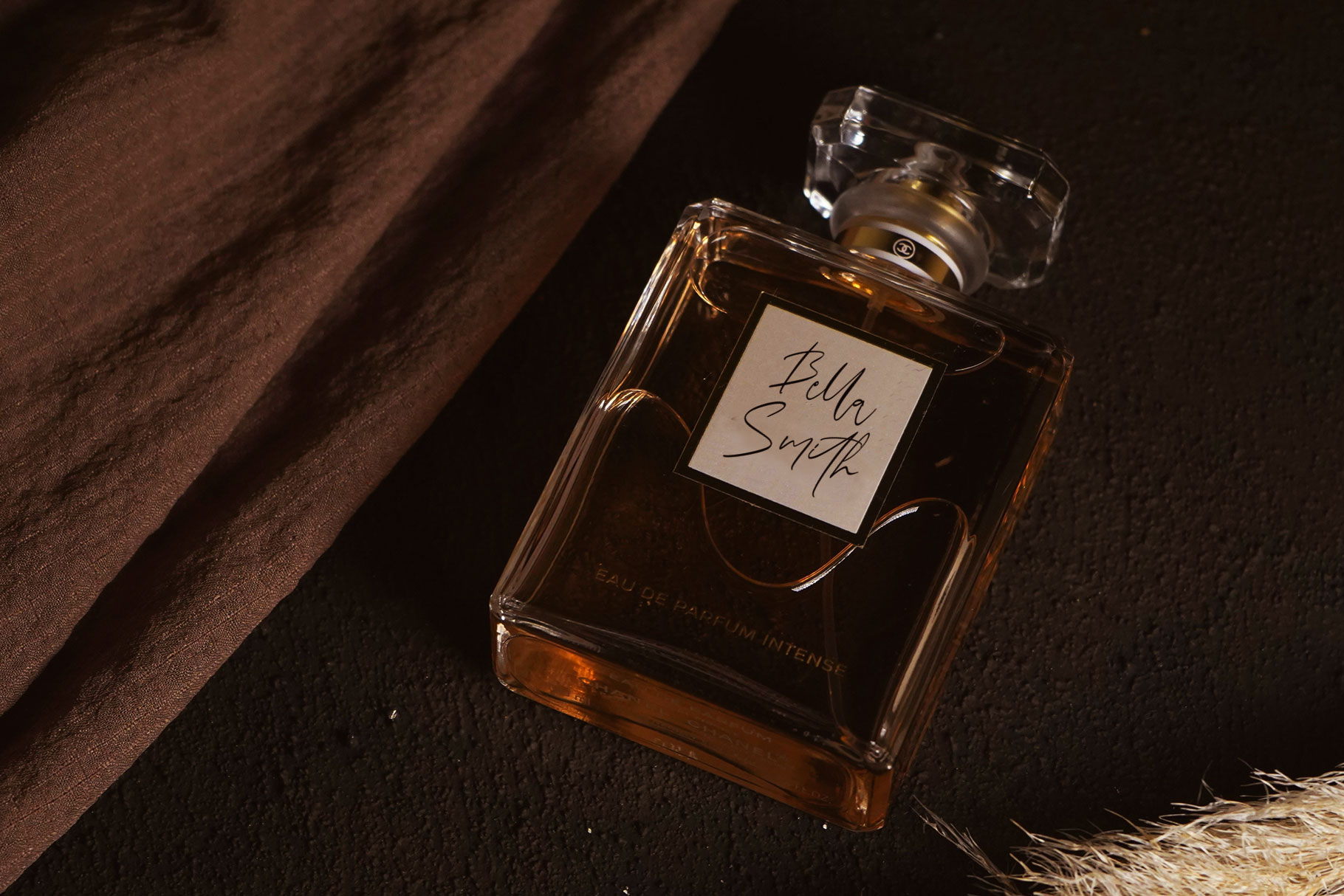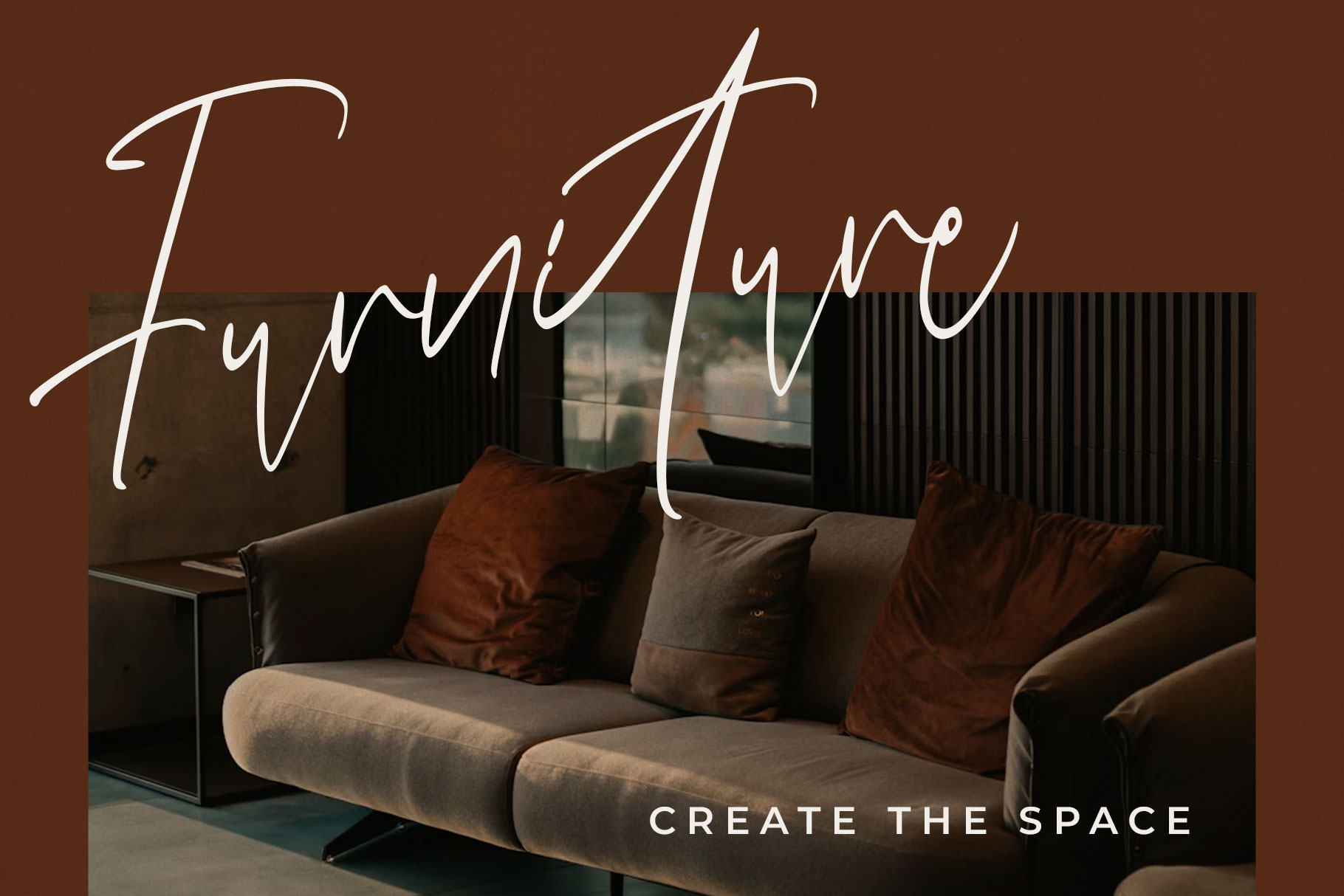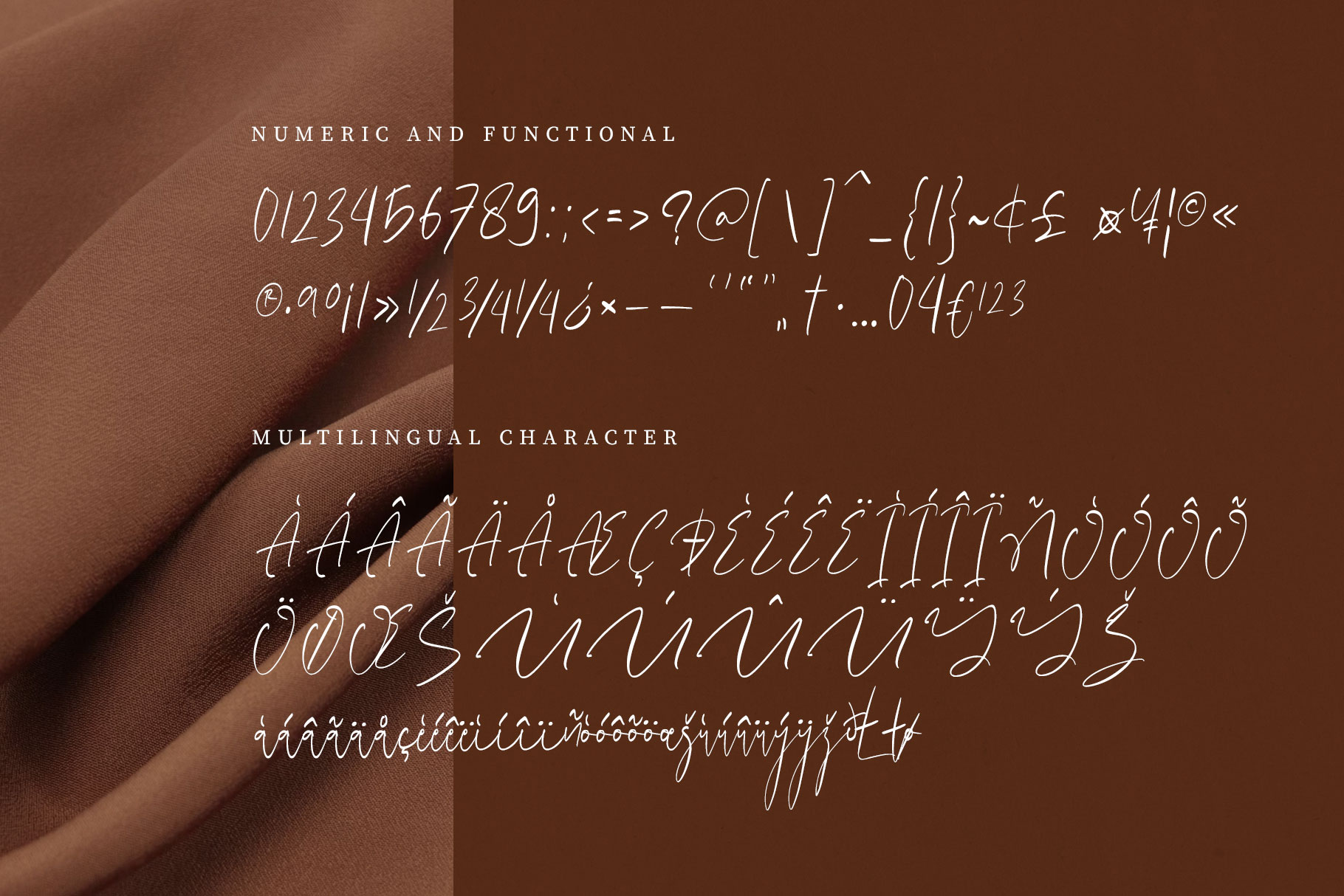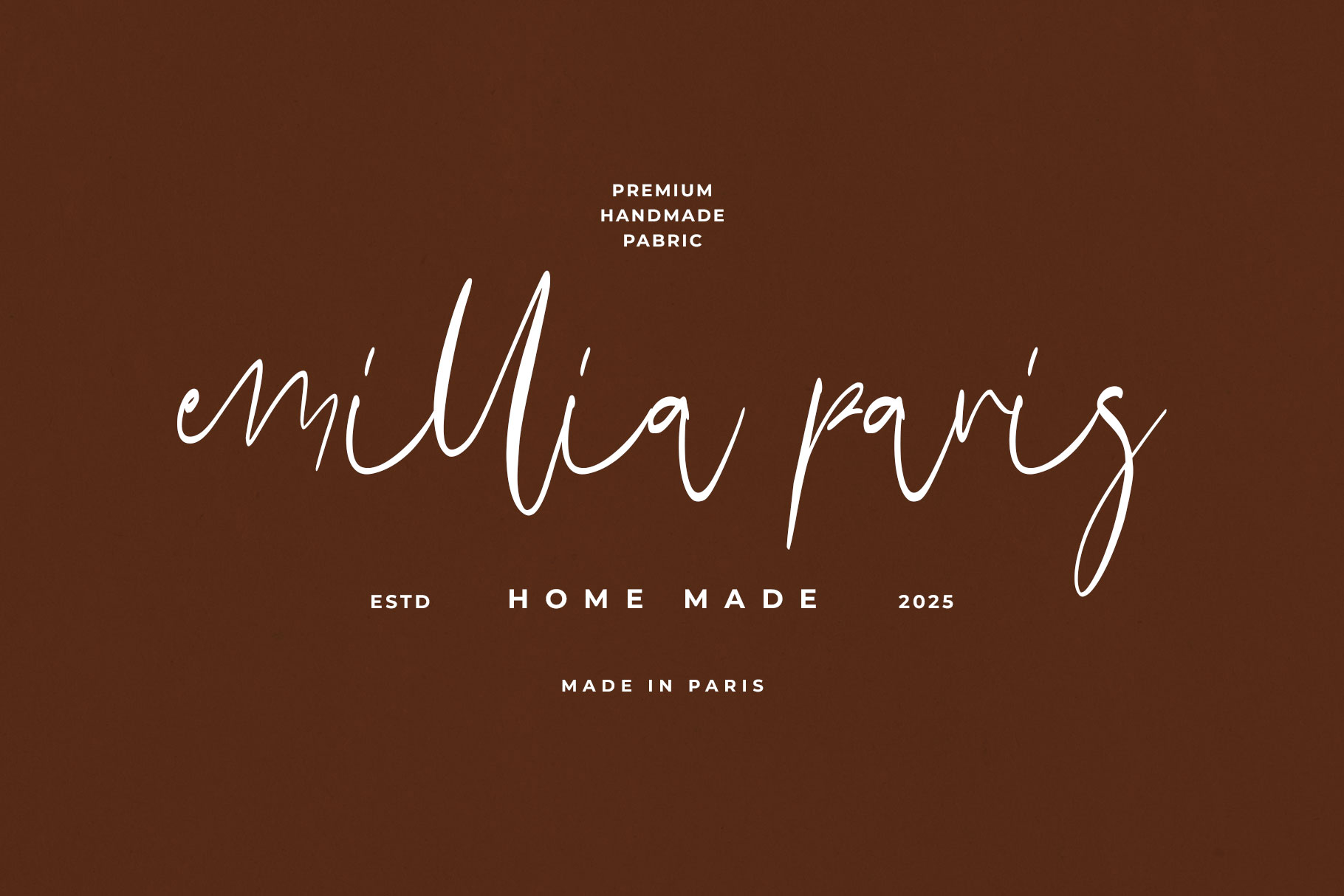
Drenattia Modern Script Font
Drenattia is modern script font embrace grace and elegance. Drenattia bring style and trend to make your design awesome. Drenattia is a perfectly choice for any creative endeavor, creating, modern, lifestyle design such as logotype, title, cover, branding, invitations, wedding designs, display and magazine, social media posts, advertisements, printed quotes, product packaging, corporate brand, product designs, labels, photography, watermarks, special events and any other project with handwritten feel.